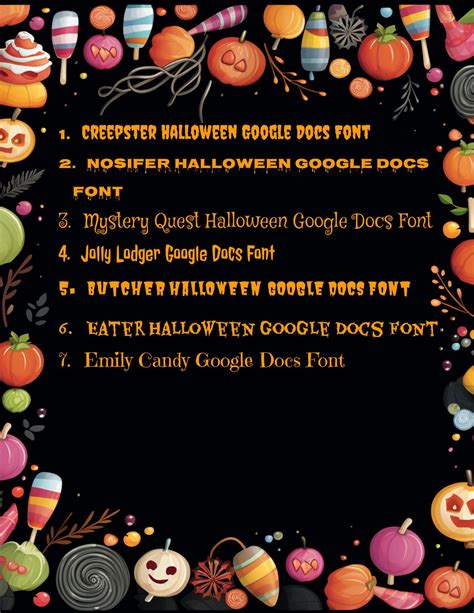
Google Docs Halloween Fonts. Web spooky halloween fonts on google docs (google fonts) 1. Web spooky fonts on google docs 1.
Our very first halloween font on google docs is creepster. Like its name, creepster has an uneven,. Web when it comes to conjuring the eerie enchantment of halloween within your google docs documents, the right fonts and backgrounds can perform magic. Web spooky halloween fonts on google docs (google fonts) 1. Web the best cute fonts on google docs the best aesthetic fonts on google docs old english font google docs the best google docs typewriter fonts scary fonts on google docs 1. In this section, we present a curated selection of. Don’t know how to add these fonts in google docs? Web spooky fonts on google docs 1.
Web spooky fonts on google docs 1. In this section, we present a curated selection of. Web when it comes to conjuring the eerie enchantment of halloween within your google docs documents, the right fonts and backgrounds can perform magic. Like its name, creepster has an uneven,. Web the best cute fonts on google docs the best aesthetic fonts on google docs old english font google docs the best google docs typewriter fonts scary fonts on google docs 1. Our very first halloween font on google docs is creepster. Web spooky halloween fonts on google docs (google fonts) 1. Don’t know how to add these fonts in google docs? Web spooky fonts on google docs 1.